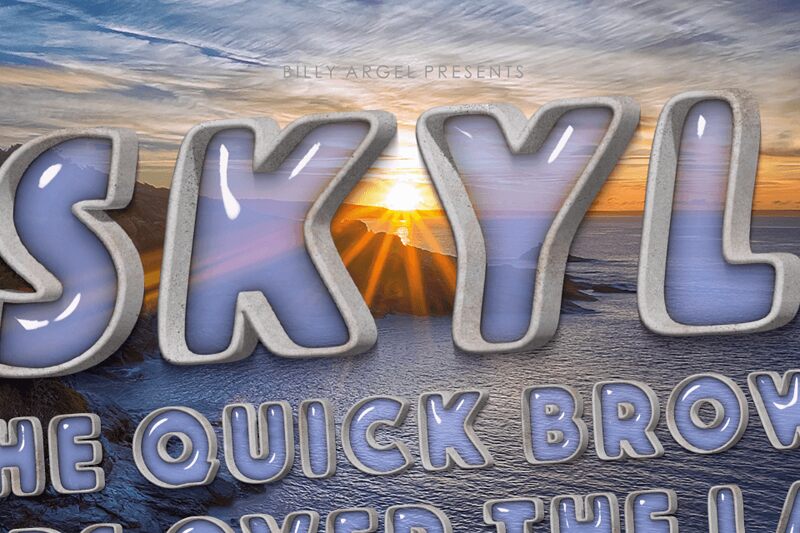
SKYLENSITALICPERSONALUSE-BdIt
Skylens BdIt font by Billy Argel Fonts is a bold eroded display font with a retro influence and an energetic presence. This playful typeface features distressed texture meant to add interest to your typography. Its powerful letterforms are rounded for a friendly look while their scratched outlines become the main visual focus of each character.
This free display font can be featured in t-shirt designs, posters, banners, book covers, social media ads, business cards and brand logos. Use it on mobile apps or websites for headings and short text blocks to make them more eye-catchy and memorable. Source some inspiration from the demo images before getting started!